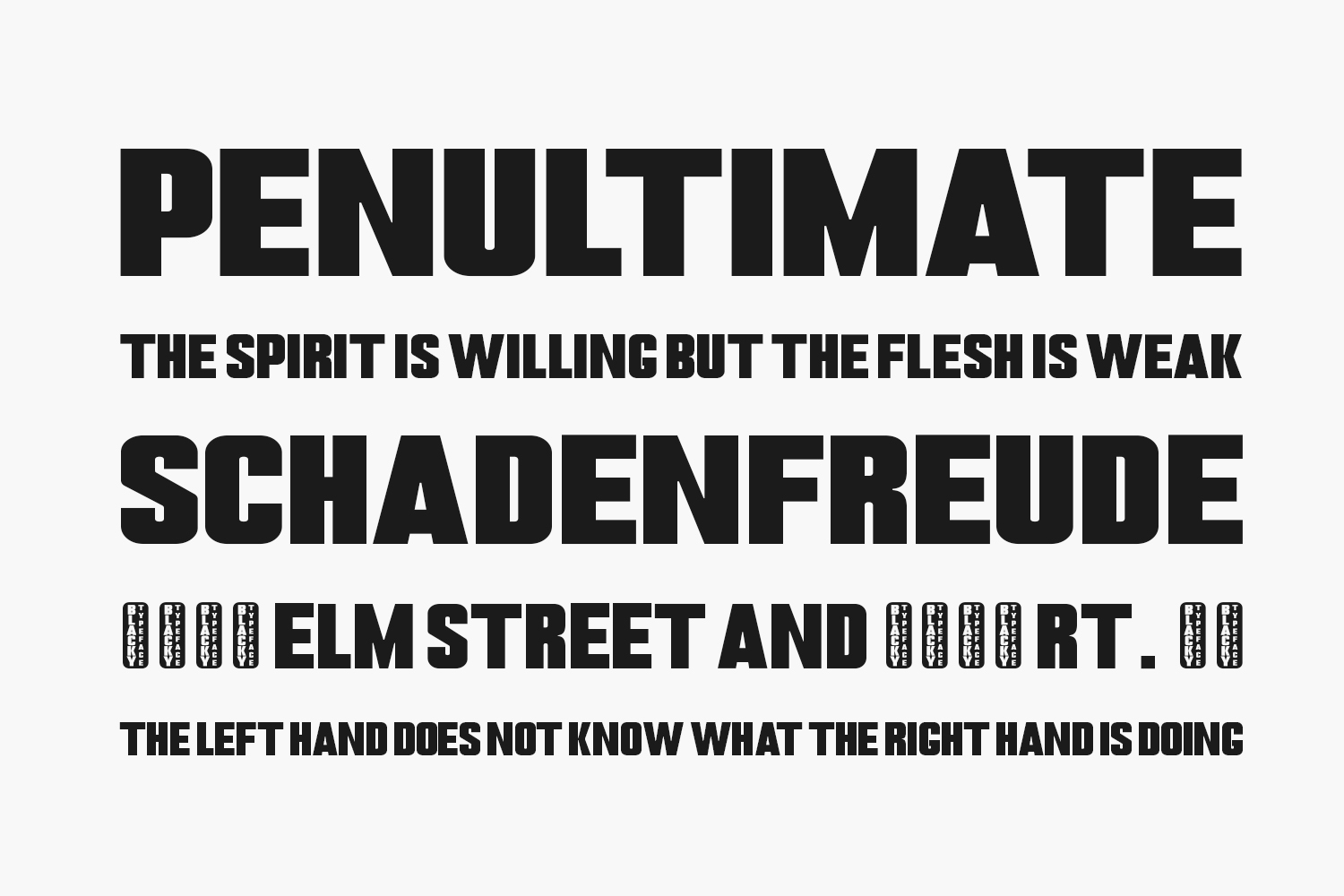
Blacky is a strong and expressive gothic font designed by Andi Moz to bring dramatic impact to your creative projects. With its sharp edges, bold structure, and dark aesthetic, this free decorative typeface works perfectly for designing striking logos, horror posters, branding materials, and more. Available in OTF format with support for Latin characters, Blacky is ideal for designers seeking an intense, high-contrast font that stands out in both print and digital media.
Why Choose Blacky?
- Bold Gothic Style: Combines sharp letterforms with deep contrast for a powerful, edgy visual presence.
- Ideal for Horror & Dark Themes: Perfect for Halloween graphics, movie titles, or underground music branding.
Where to Use Blacky?
Blacky shines across a variety of creative applications:
- Logos & Branding: Adds intensity to brand identities for punk labels, tattoo studios, or alternative fashion brands.
- Halloween & Horror Posters: Designed for large text — makes headlines pop in event banners or scary visuals.
- Movies & Trailers: Great for thriller titles, animated intros, or cinematic branding needing a dark tone.
- Social Media Graphics: Creates bold, attention-grabbing text overlays for TikTok videos or YouTube thumbnails.
- Packaging Design: Brings edge to product names on energy drinks, streetwear tags, or alternative lifestyle goods.
Design Tips with Blacky
To maximize the drama of Blacky, pair it with minimalist layouts and contrasting colors to let the font stand out. Use this bold type for short, impactful slogans or logo headers where legibility isn’t compromised. For digital use, combine with glowing effects or blood-style textures to enhance its horror appeal. Try our interactive font preview tool below to test Blacky with your own text before downloading!
Designed by Trotoart